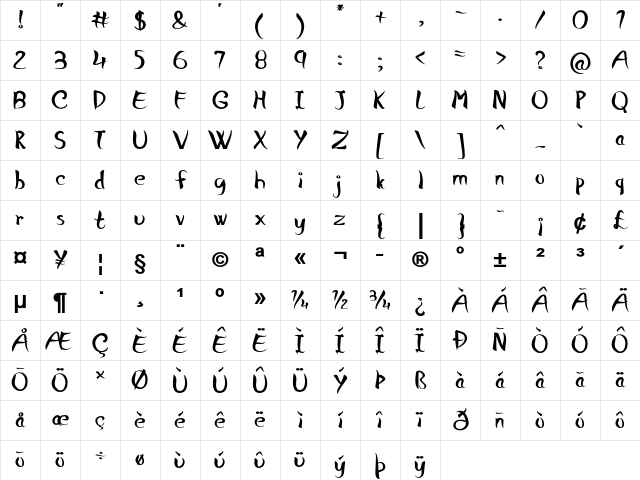
Grendo Bold
Grendo Family
Design Context for Grendo
Grendo is a composed and adaptable typeface that performs quietly and consistently across a wide range of design contexts. Its bold stroke weight gives it real presence on the page.